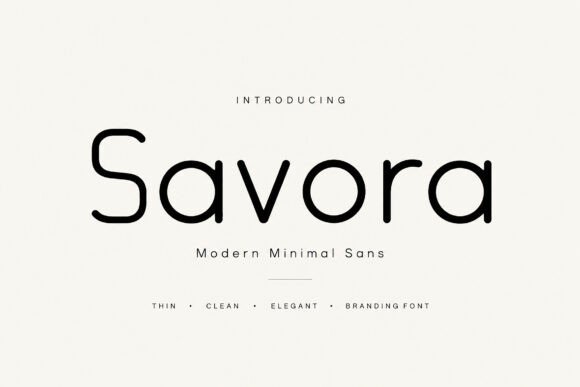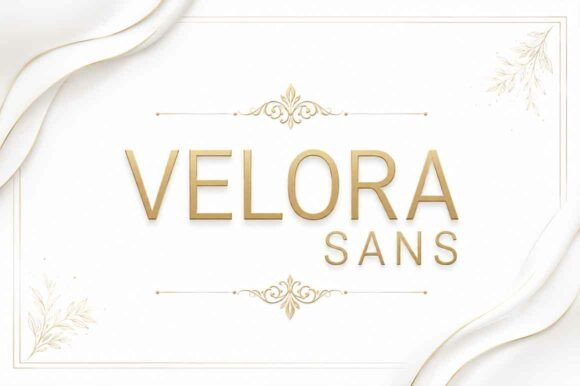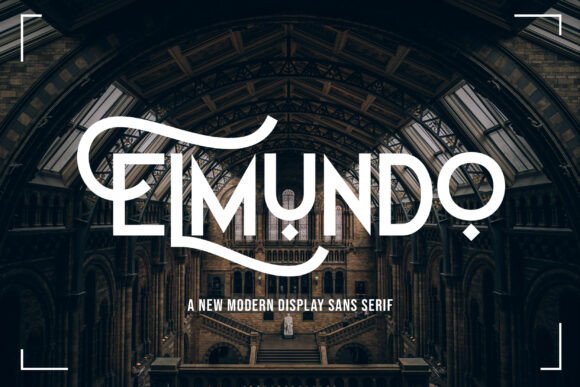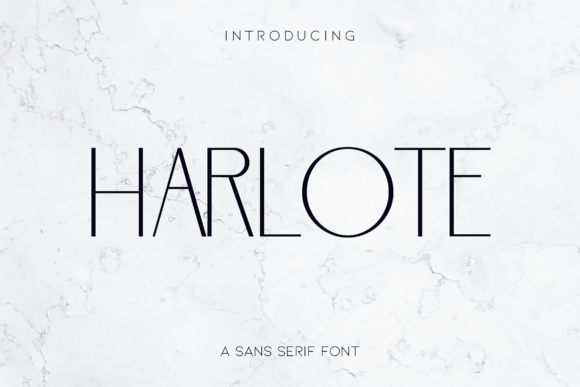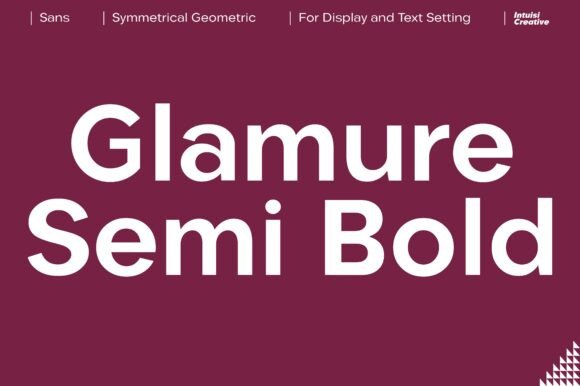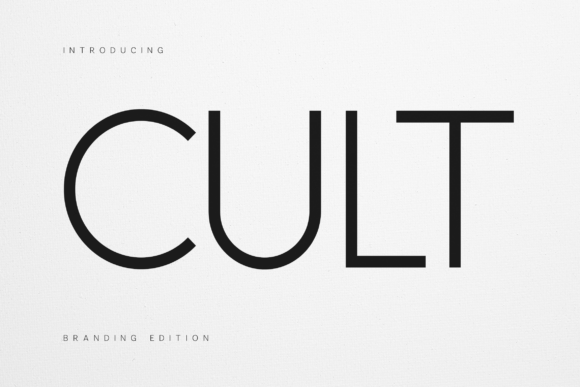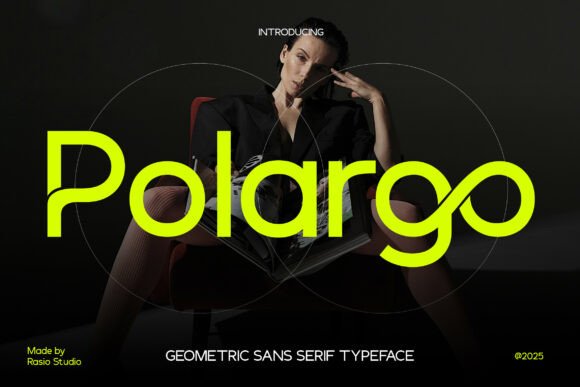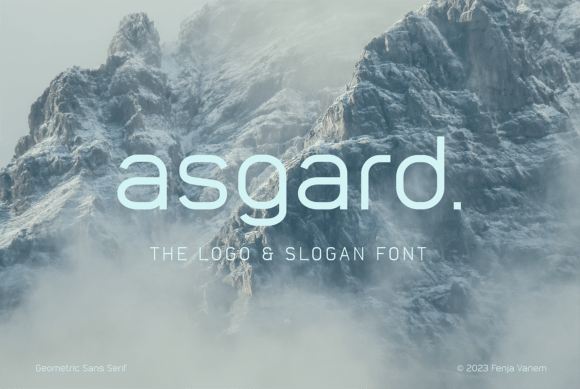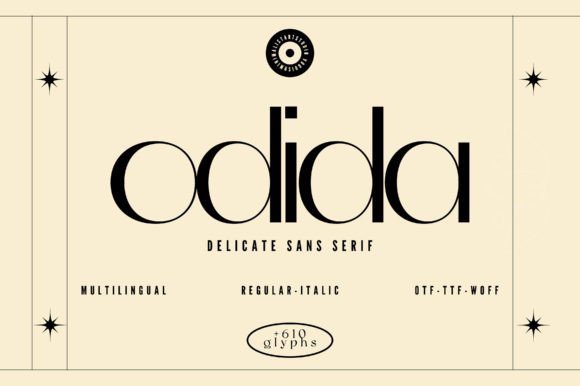
16 Sleek Modern Sans Serif Fonts for Branding (2026)
Modern sans serif fonts for branding are the quiet backbone of most identities. They carry a logo, a website and an app without drawing attention to themselves, which is exactly the point: clean, even letterforms read as trustworthy and current. So strong modern sans serif fonts for branding are chosen for how calmly they work everywhere.
This guide sorts 16 fonts by the job they do, clean logo wordmarks, bold geometric statements, display options and useful companions, so you can pick by use rather than by name.
How to choose modern sans serif fonts for branding
A brand sans has to work in more places than any other font you buy. Judge these modern sans serif fonts for branding against the points below.
- Range of weights: a family with several weights covers logo, web and app.
- Small-size clarity: a brand font lives in menus and captions, so test it tiny.
- A point of difference: one distinctive detail keeps it from looking generic.
- Screen first: check it on a phone, where most people meet a brand.
Clean modern sans serif fonts for brand logos
Start here. These clean modern sans serif fonts for branding make calm, confident wordmarks and stay legible everywhere.
Savora
Savora is a clean, elegant modern sans built for minimal layouts. Among modern sans serif fonts for branding it is a calm, dependable wordmark that reads at any size, from a logo to a caption. Use it for the name and the same family for body, with open spacing. The even forms reverse cleanly on dark. For a brand that wants a clean, minimal sans at its core, Savora is a reliable font worth a close look.
Nerova
Nerova is a beautifully crafted elegant sans that blends modern clarity with subtle character. Among modern sans serif fonts for branding it is refined enough to lead a logo and clear enough to run the body, which makes it a strong single-family choice. Use it across the identity with consistent weights. For a brand that wants one elegant sans to do everything, Nerova is a graceful font worth a look.
Velora Sans
Velora Sans brings effortless sophistication to a layout. Among modern sans serif fonts for branding it reads calm and premium, suiting a beauty, fashion or lifestyle identity. Use it for the wordmark and supporting text in matching weights for a tidy, single-voice brand. The clean forms stay legible small. For a brand that wants an effortless, premium sans, Velora Sans is a sleek font worth trying.
Elmundo
Elmundo is a sleek, stylish sans designed for bold visual impact. Among modern sans serif fonts for branding it carries a wordmark with confidence while staying clean and modern. Use it large for the logo and the same family for detail. The sleek forms read current and reverse well. For a brand that wants a sharp, modern sans with a little attitude, Elmundo is a strong font worth a look.
Harlote
Harlote is a minimalist sans with a refined, modern aesthetic. Among modern sans serif fonts for branding it leans clean and quiet, a good wordmark for a brand that trusts white space. Use it with open tracking and a single weight for the name. The pared-back forms read calm and stay sharp small. For a brand that wants a minimal, refined sans, Harlote is a tidy font worth trying.
Glamure
Glamure Semi Bold brings timeless balance to a layout. Among modern sans serif fonts for branding it sits in the useful middle weight, confident enough for a wordmark and readable enough for body. Use it for the name and matching cuts for detail. The balanced forms read steady across sizes. For a brand that wants one dependable, balanced sans, Glamure is a reliable font worth a look.
Bold geometric sans for strong branding
For brands that want presence, these bold geometric sans faces bring weight and structure to a logo or headline.
Cult
Cult Branding is a refined geometric sans built for contemporary identities. Among modern sans serif fonts for branding it brings clean geometry and a designed edge, suiting tech and modern lifestyle brands. Use it for the wordmark and the same family for the system. The geometric forms read confident and current. For a brand that wants a sharp, geometric sans at its core, Cult is a strong font worth trying.
Polargo
Polargo is a bold modern geometric sans for strong visual impact. Among modern sans serif fonts for branding it adds real weight while keeping clean geometry, good for a logo that needs to dominate. Use it large for the name and lighter cuts for detail. The bold forms read from a distance and reverse strongly. For a brand that wants a bold geometric sans wordmark, Polargo is a powerful font worth a look.